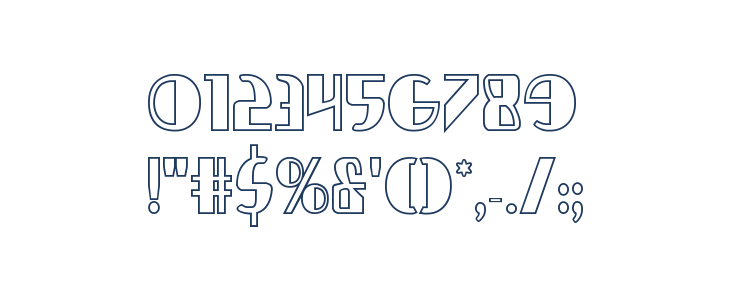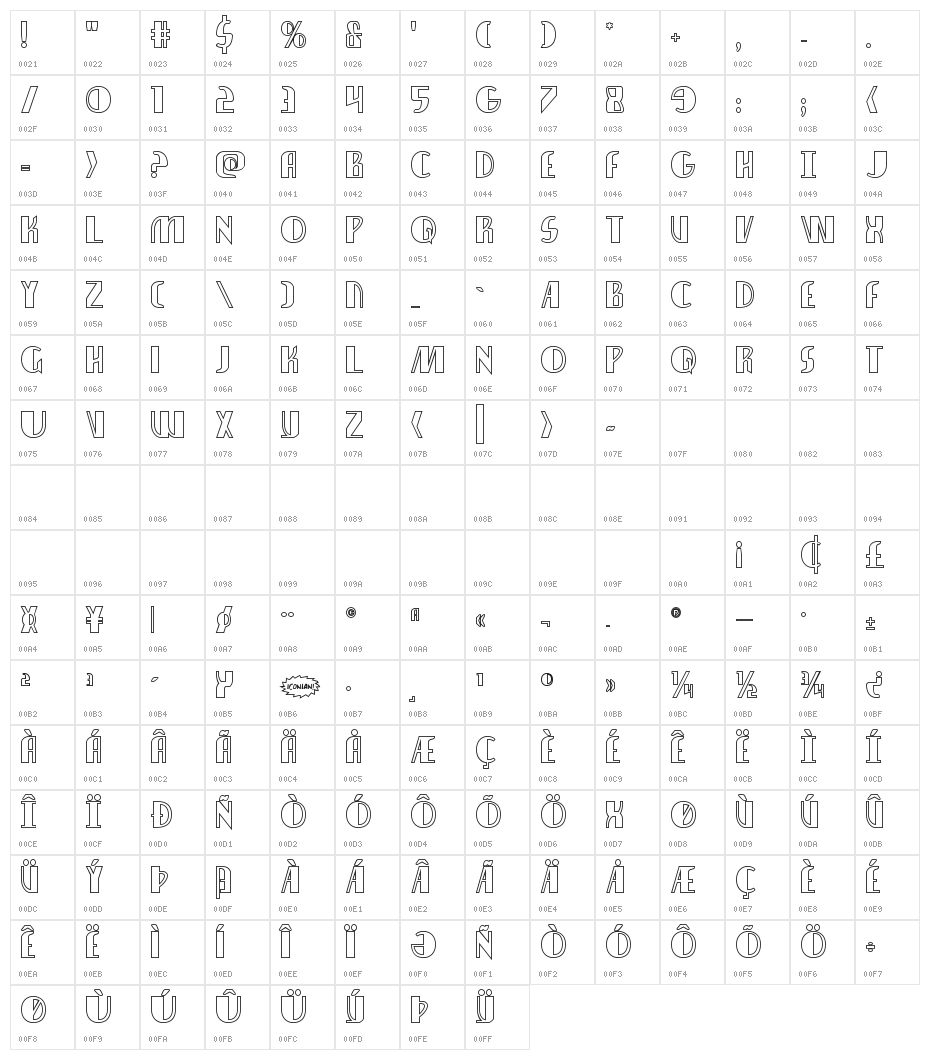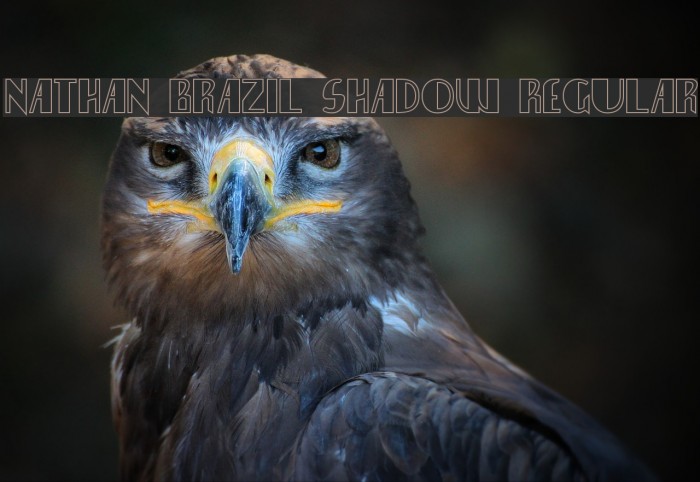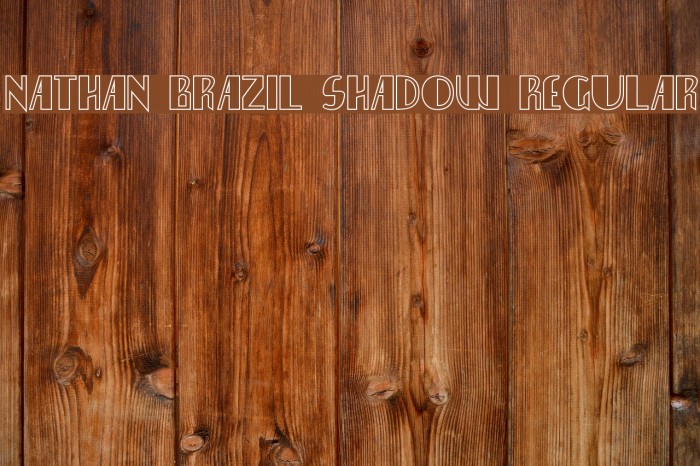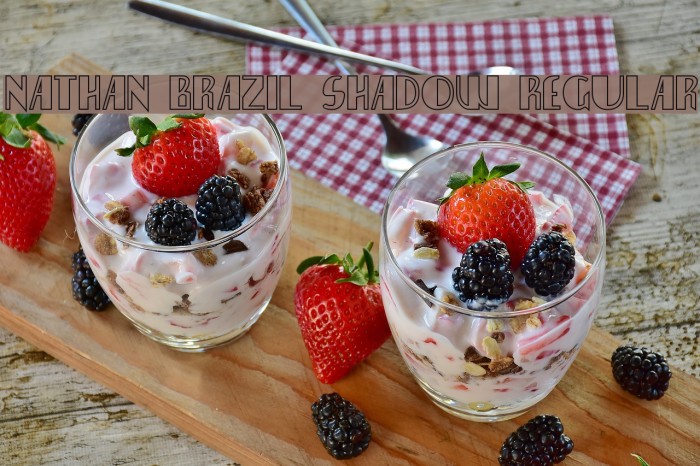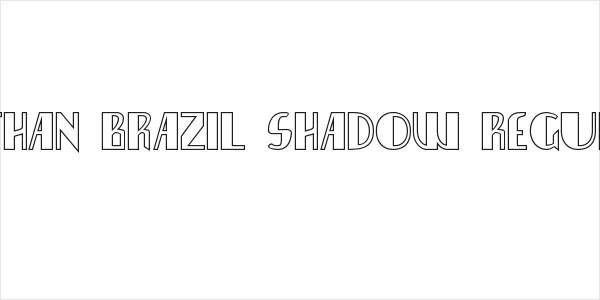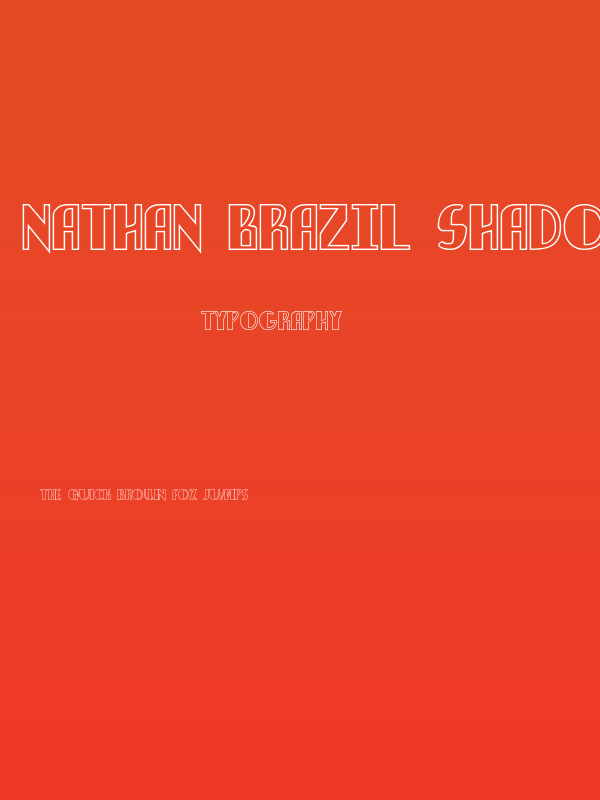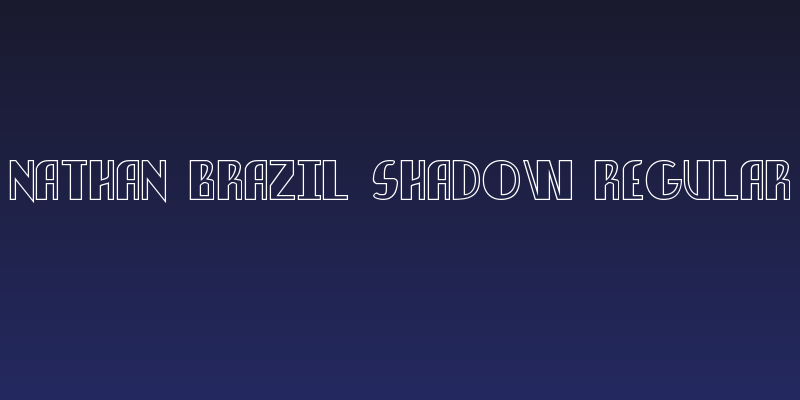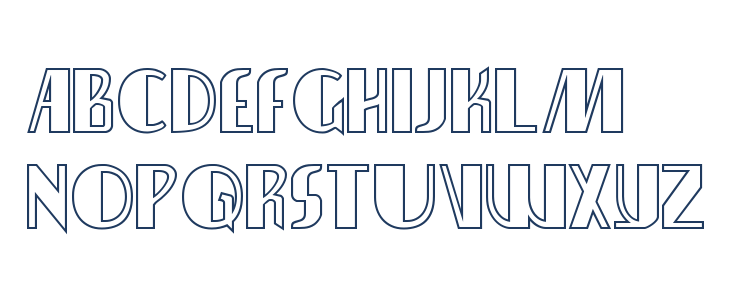
Nathan Brazil Shadow Regular Font
Nathan Brazil Shadow Regular Description
This font features a bold, geometric design with a distinct shadow effect that gives it a three-dimensional appearance. The characters are outlined, creating a hollow look that is both modern and eye-catching. The uppercase letters are uniform in height, while the numerals and special characters maintain a consistent style, enhancing the overall cohesiveness. The font's unique shadowing adds depth, making it ideal for standout designs.
| Proposed Projects | Ideal for posters, logos, and headlines where a striking, modern look is desired. |